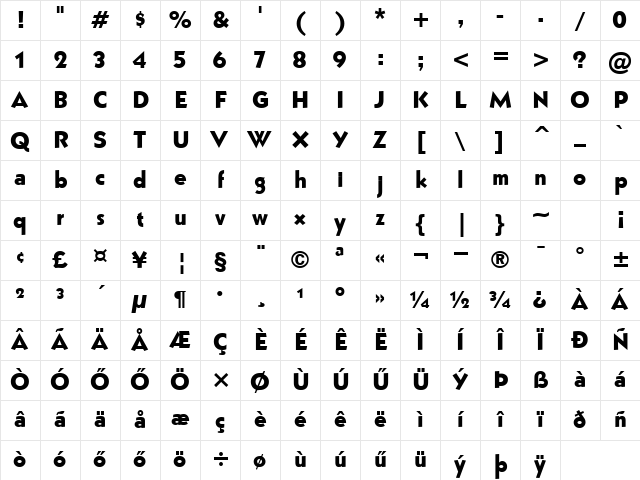
H_Grizzly BT Regular
Design Context for H_Grizzly BT
H_Grizzly BT is a composed and adaptable typeface that performs quietly and consistently across a wide range of design contexts.